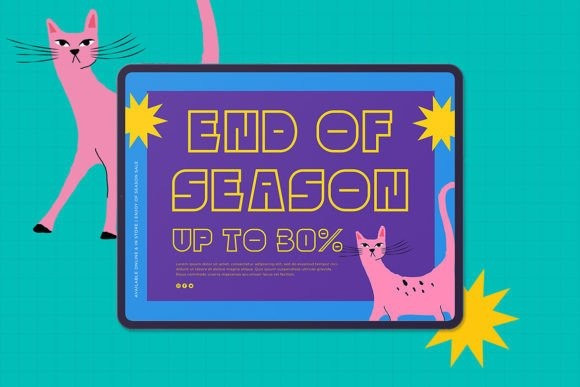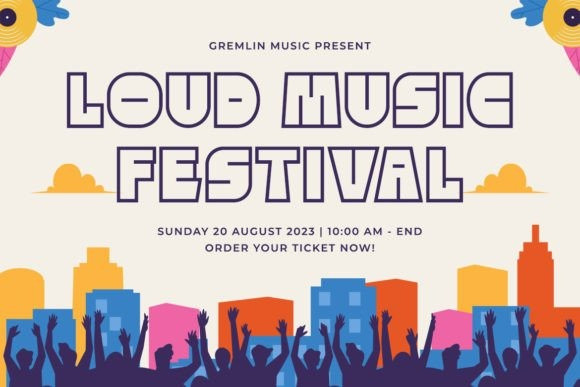
Gremlin Font
Gremlin Display Font is a unique outlined display font. It can be used for various purposes such as quotes, descriptions, mugs, invitations, letterheads, signage, labels, news, posters, badges and so much more.